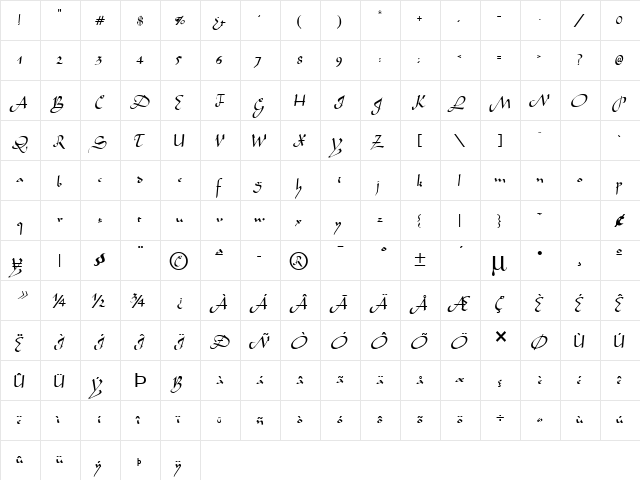
Mocha Normal
Design Context for Mocha Typeface
Mocha is a composed and adaptable typeface that performs quietly and consistently across a wide range of design contexts.